Review Of How To Download Google Fonts Ideas
Review Of How To Download Google Fonts Ideas. This opens the font book app,. Sort the file listing by clicking.
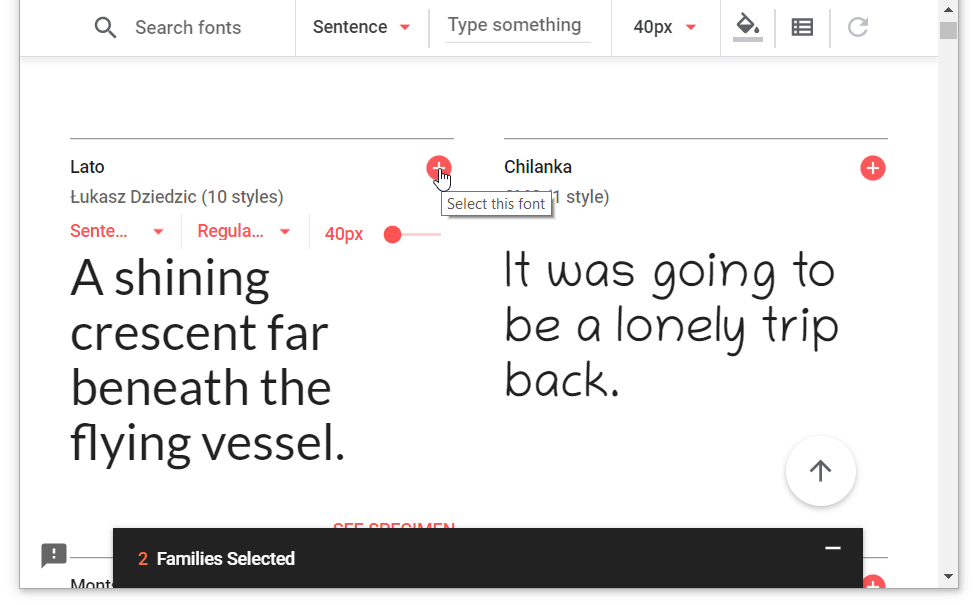
Web to add new fonts: Open sans is a humanist sans serif typeface designed by steve matteson, type director of ascender corp. Web downloading recursive fonts.
Web To Add New Fonts:
Web how to use google fonts www.bonjourblogger.com. Web choosing the right font for your webpage is a very important aspect of any design. Web downloading recursive fonts.
Sort The File Listing By Clicking.
Open sans is a humanist sans serif typeface designed by steve matteson, type director of ascender corp. This tool also allows you to simply download all formats at once without. Please see the github contributing file for all the details.
Using a web font service enables you to use a wide variety of fonts fit for. Get to know each font. Web downloading any google font.
Using The Sorting Filter, You Can View Font Families Based On What’s Currently Trending Or The Most Popular Fonts.
Skyfonts runs in the background to make. Web in this tutorial video, i show you how to easily download and install google fonts on both mac and pc.go to fonts.google.com to download the fonts.pc part of. Web click the browse button to select a folder to extract the zip to and press the extract button.
You Can Also Filter By Date Added Or Put.
This will open a new window with hundreds of available fonts. Web if you don’t want to create an account and use skyfonts, you can download fonts directly via the google code project. Web google fonts reviews submissions on github.